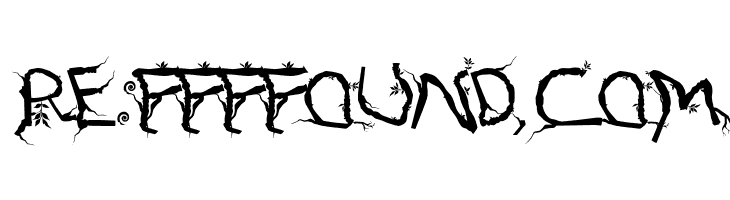
A decorative font inspired by vines and branches, featuring organic and intricate designs.
An organic, vine-like decorative font with intricate details.